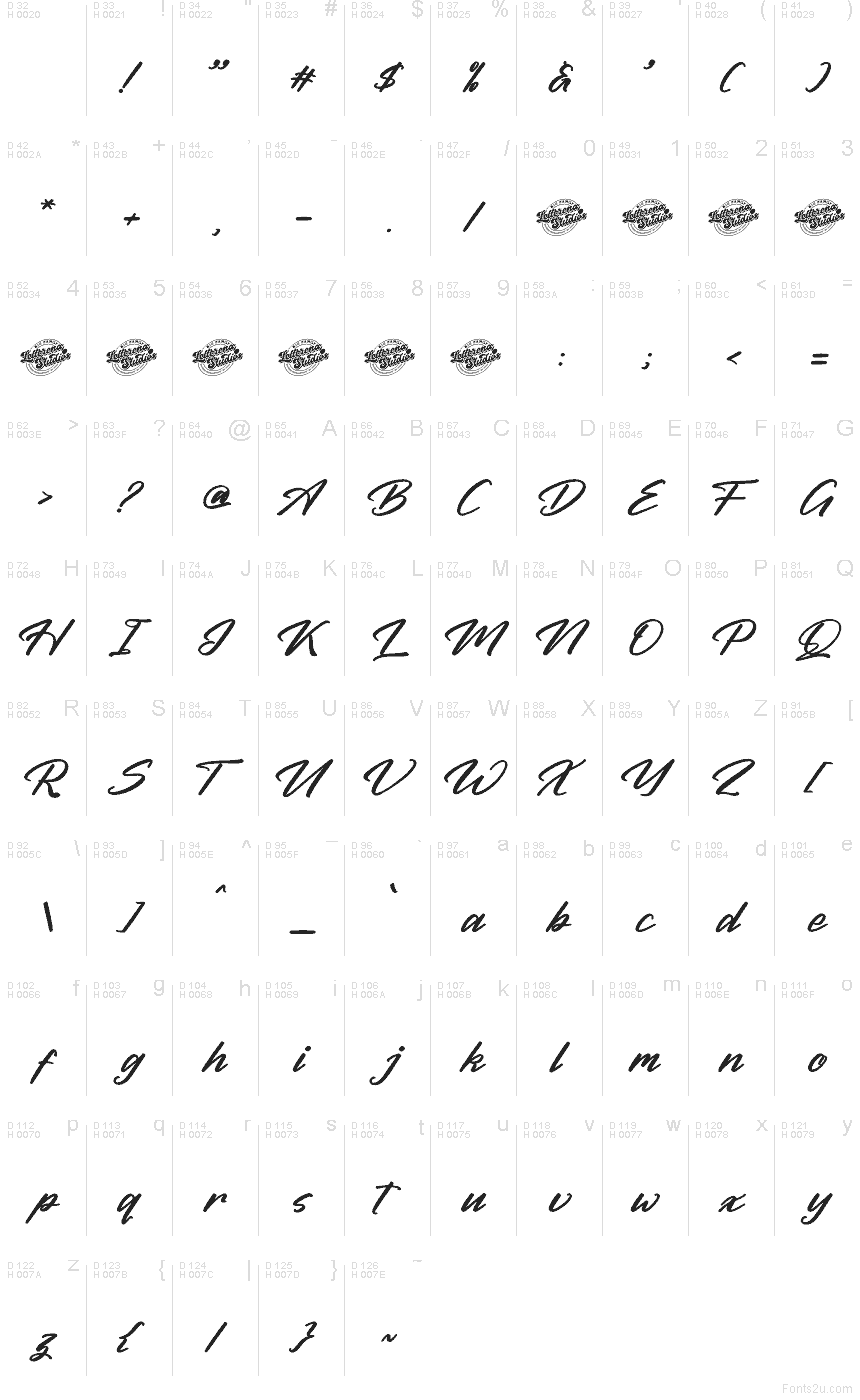
Bolinker Quantum DEMO VERSION Italic
Bolinker Quantum Italic font by Letterena Studios is a free calligraphy font that turns any word into a fluid signature. Its swooping strokes, inky curves, and gentle slant give text a hand-lettered feel that’s both polished and romantic, like fresh ink on thick, textured paper. As part of the Bolinker Quantum family, it carries a consistent rhythm that makes flowing titles and names feel effortless and expressive.
Using Bolinker Quantum Italic, your lettering instantly suits wedding invitations, boutique logos, packaging labels, social media overlays, name cards, and elegant quote graphics. The long, sweeping connections add a sense of motion and personality, so short phrases and brand names really stand out. This free font works beautifully when paired with a clean sans serif for body copy—set the script large for impact and let a simple companion handle the small print.